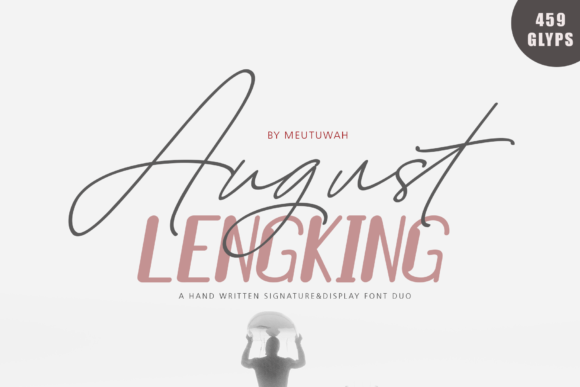
August Lengking Duo Font: Elevate Your Designs with Elegance and Sophistication
The world of typography has witnessed a significant transformation over the years, with designers continually seeking innovative and stylish fonts to make their work stand out. One such remarkable font duo that has gained attention in recent times is the August Lengking Duo Font. This exceptional pairing combines a modern and classic style, offering designers a unique opportunity to add an elegant touch to their creations. In this article, we’ll explore the distinctive features of the August Lengking Duo Font, its benefits, and how it can elevate your designs.
Introducing the August Lengking Duo Font
The August Lengking Duo Font is a thoughtfully crafted font duo that includes two distinct styles: August and Lengking. The August font boasts a dancing baseline, which gives it a unique and elegant appearance. This modern style is perfect for designs that require a touch of sophistication and refinement. On the other hand, the Lengking font is a classic style with a striking look that can add a bold statement to your designs.
Benefits of Using the August Lengking Duo Font
The August Lengking Duo Font offers several benefits to designers, including:
- Elegance and Sophistication: The August font’s dancing baseline gives it an elegant and sophisticated appearance, making it perfect for designs that require a touch of refinement.
- Versatility: The Lengking font’s classic style and striking look make it versatile and suitable for a wide range of designs.
- Improved Readability: Both fonts are designed to be highly readable, ensuring that your message is conveyed clearly and effectively.
- Unique and Memorable: The August Lengking Duo Font is a unique and memorable font duo that can help your designs stand out from the crowd.
Design Tips for Using the August Lengking Duo Font
Here are some design tips to help you get the most out of the August Lengking Duo Font:
- Use August for Headings: The August font’s elegant and sophisticated appearance makes it perfect for headings and titles.
- Use Lengking for Body Text: The Lengking font’s classic style and striking look make it suitable for body text and paragraphs.
- Experiment with Font Sizes: Experiment with different font sizes to create visual hierarchy and emphasize important information.
- Pair with Images: Pair the August Lengking Duo Font with high-quality images to create a visually appealing design.
Pairing the August Lengking Duo Font with Other Fonts
The August Lengking Duo Font can be paired with other fonts to create a unique and harmonious design. Here are some font pairing suggestions:
- Serif Fonts: Pair the August Lengking Duo Font with serif fonts, such as Times New Roman or Georgia, for a classic and elegant look.
- Sans-Serif Fonts: Pair the August Lengking Duo Font with sans-serif fonts, such as Arial or Helvetica, for a modern and clean look.
- Script Fonts: Pair the August Lengking Duo Font with script fonts, such as Lobster or Pacifico, for a creative and artistic look.
The August Lengking Duo Font is a remarkable font duo that offers designers a unique opportunity to add an elegant touch to their creations. With its modern and classic styles, this font duo is perfect for designs that require sophistication and refinement. By following the design tips and font pairing suggestions outlined in this article, you can get the most out of the August Lengking Duo Font and create stunning designs that leave a lasting impression.